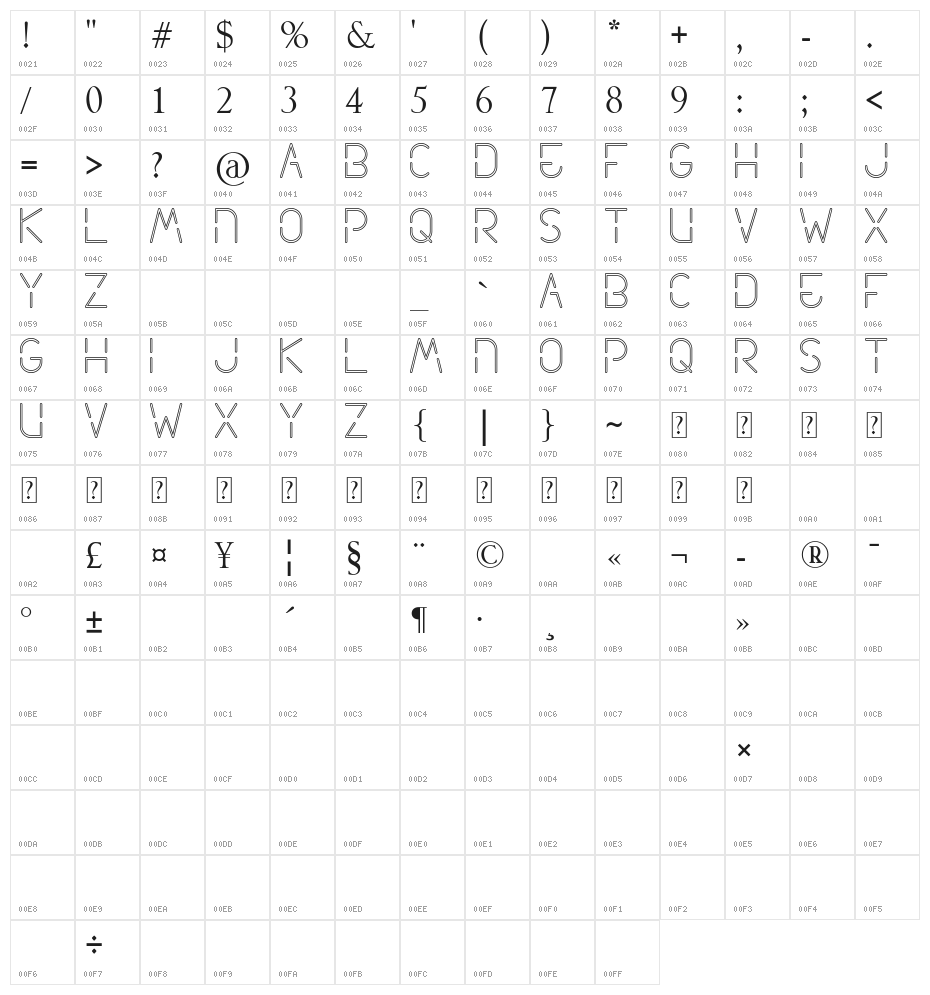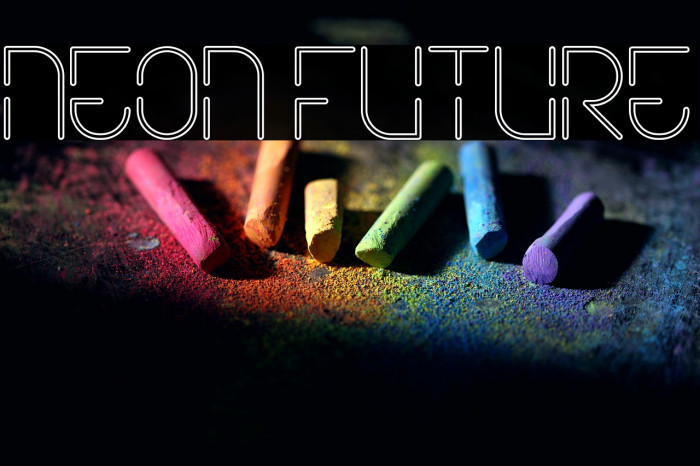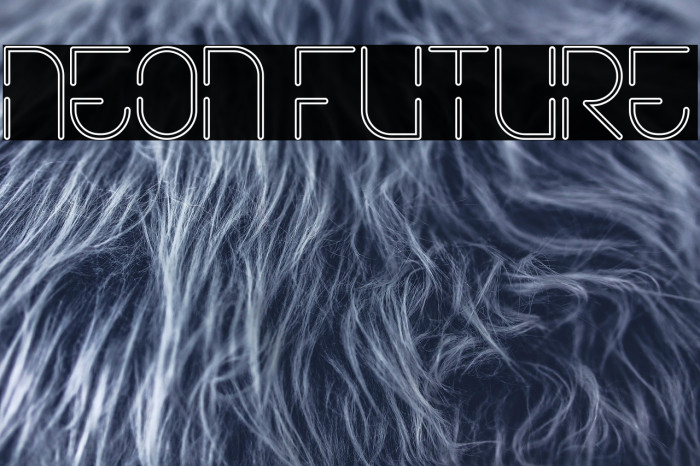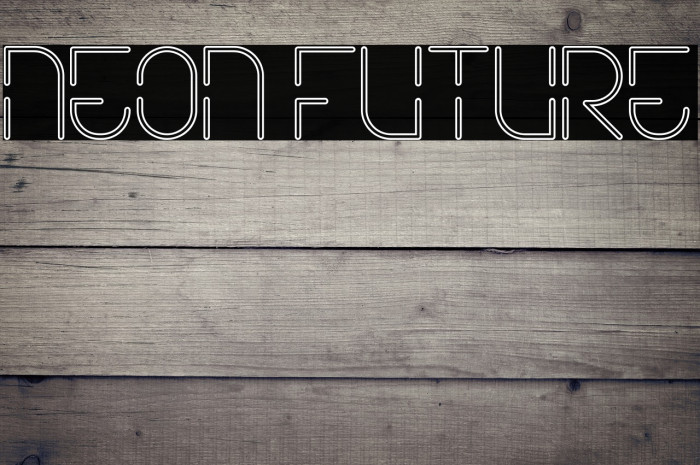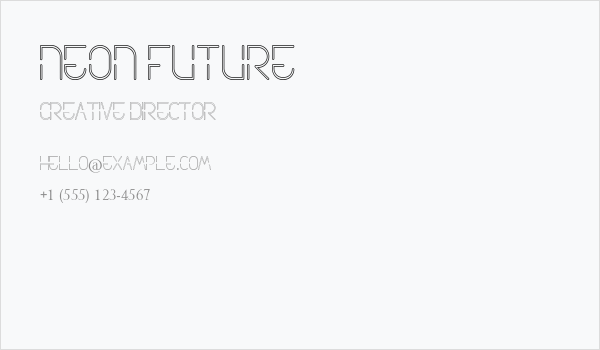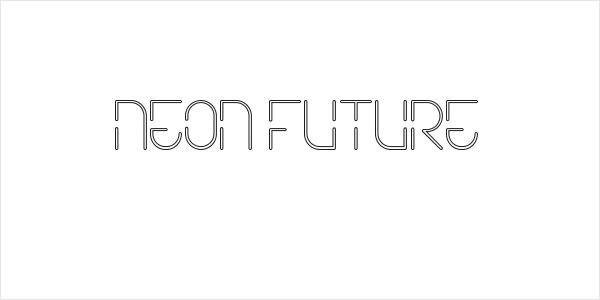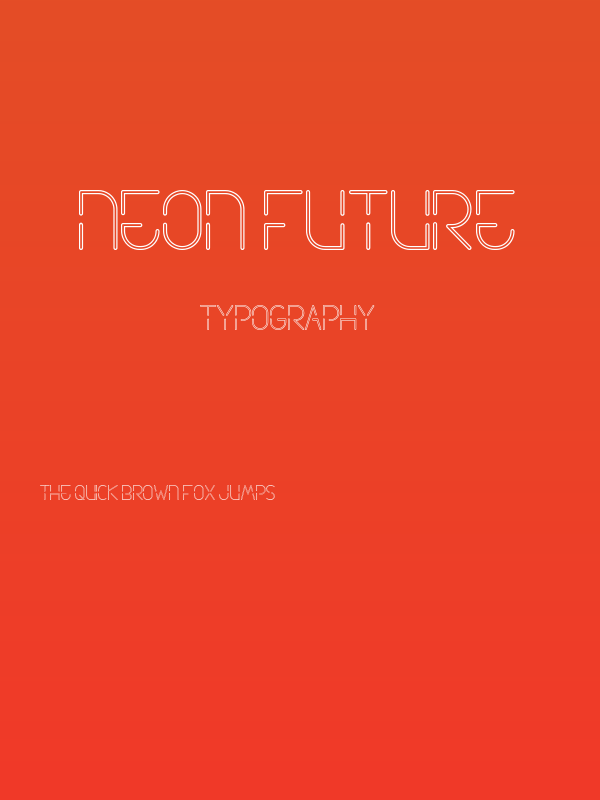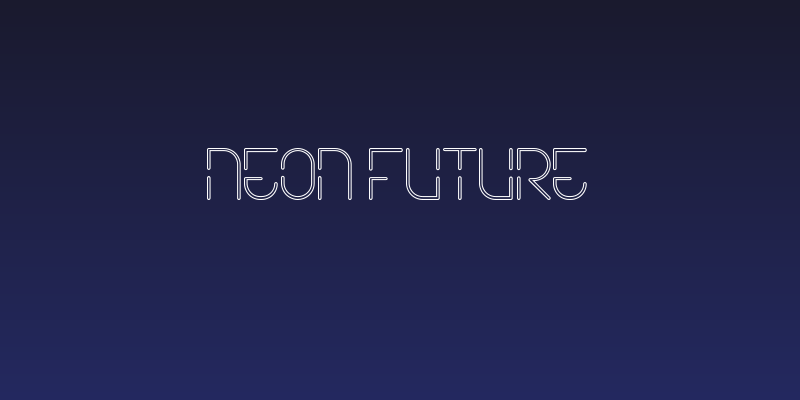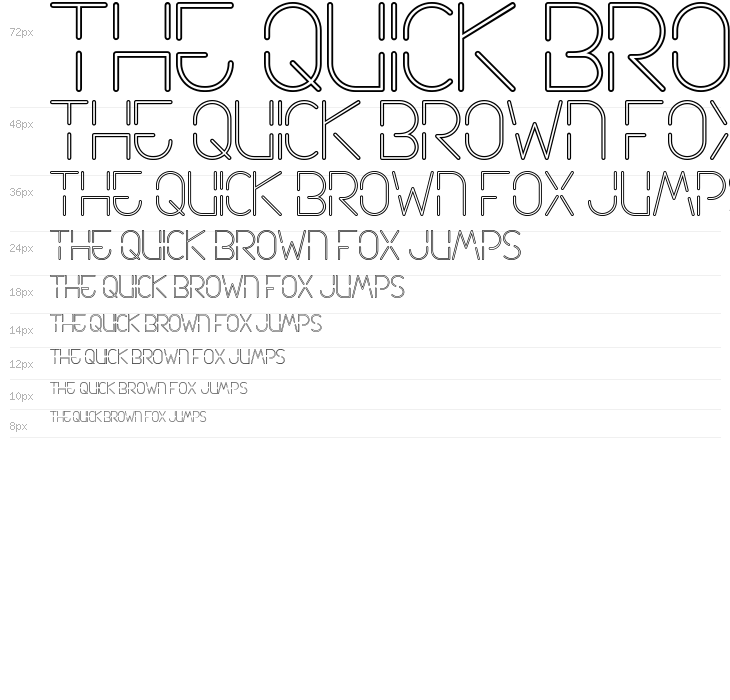
Neon Future Font
Neon Future Description
This font features a futuristic and sleek design, characterized by its geometric and linear structure. The uppercase letters are composed of clean, sharp lines with a consistent stroke width, giving it a modern and minimalist appearance. The lowercase letters maintain the same aesthetic, ensuring uniformity across the typeface. The numerals are bold and clear, making them highly legible. Special characters are designed to match the overall style, with a focus on simplicity and clarity. This font is ideal for projects that require a contemporary and high-tech look.
| Use Case | Headlines, Logos, Digital interfaces |
| Proposed Projects | Ideal for tech branding, sci-fi posters, digital interfaces, and modern advertising. |